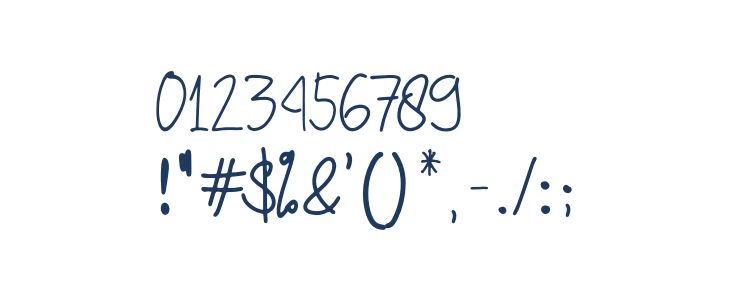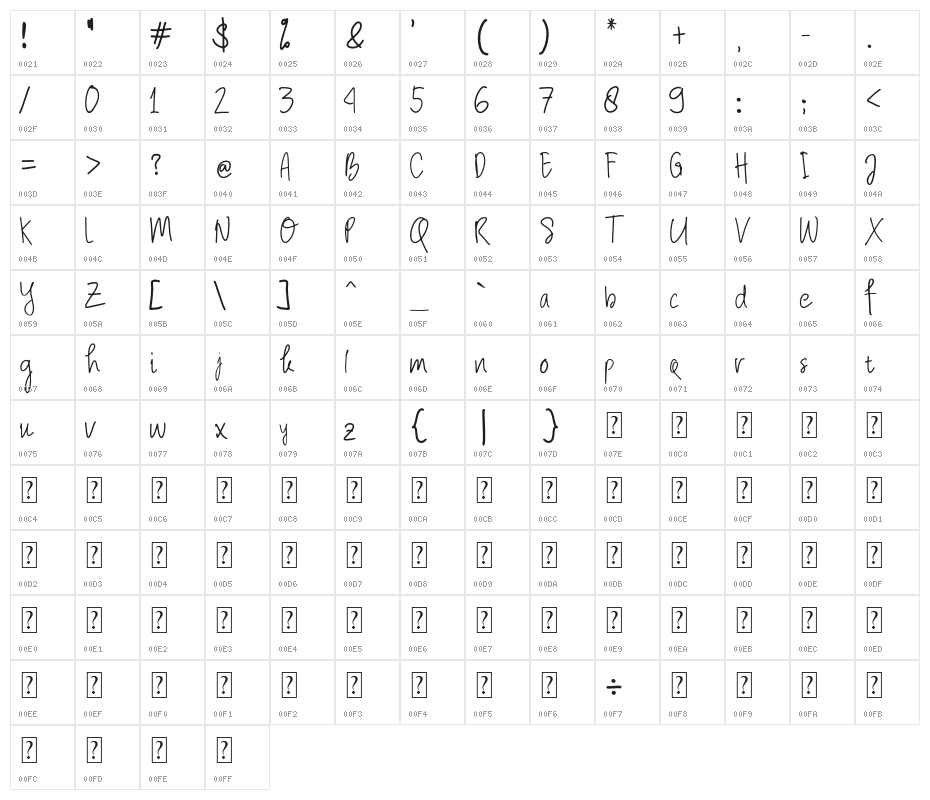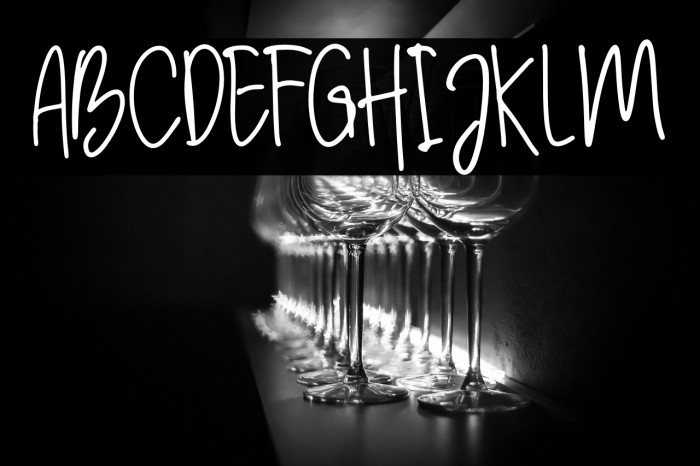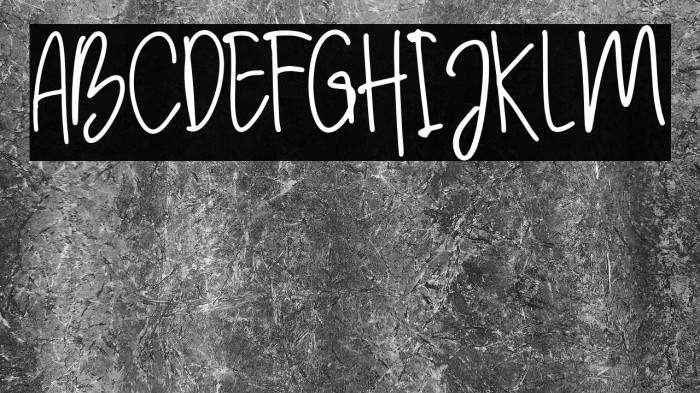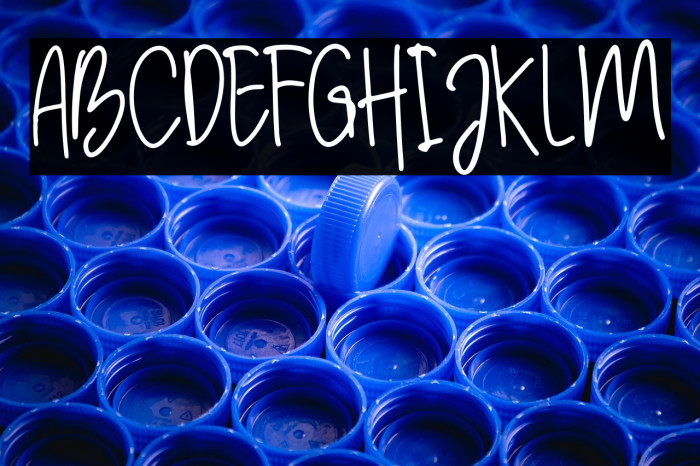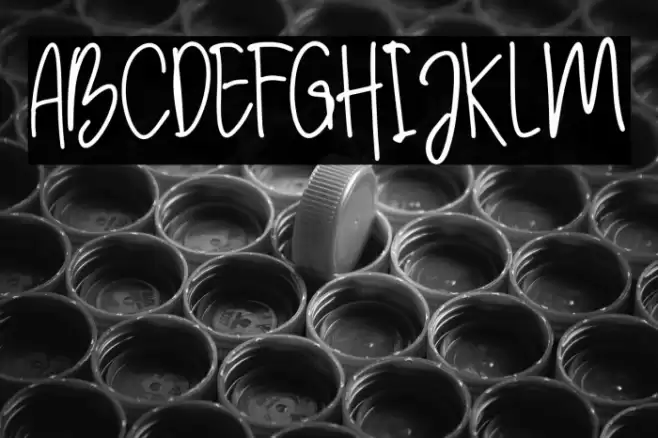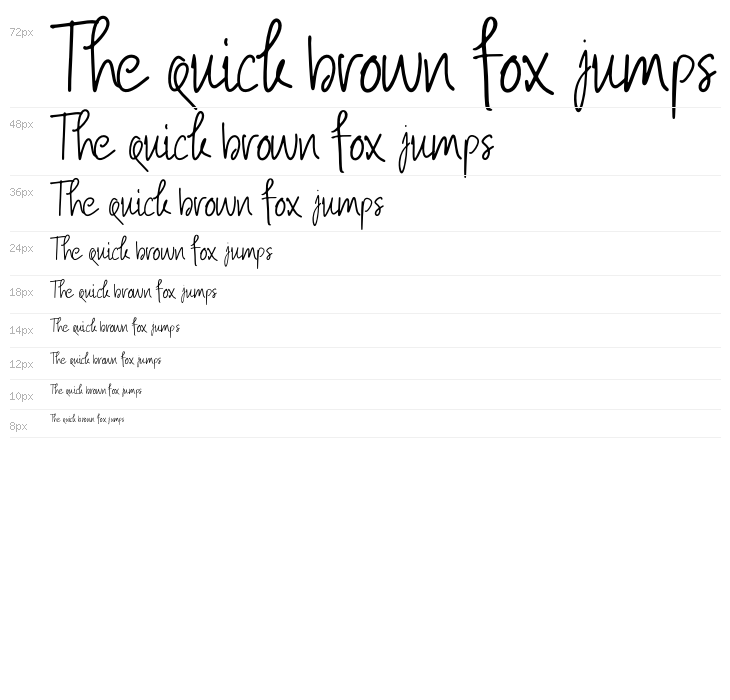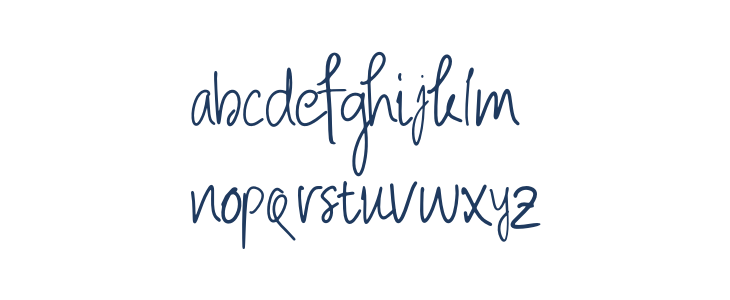
ScientiaVenit Font
ScientiaVenit Description
This font features a playful and casual handwritten style, characterized by its fluid and organic letterforms. The uppercase and lowercase letters exhibit a consistent slant, adding a dynamic feel to the text. The strokes are smooth and slightly irregular, giving it an authentic handwritten appearance. The numbers and special characters maintain the same playful aesthetic, ensuring a cohesive look across all text elements. The overall design is approachable and friendly, making it suitable for projects that require a personal touch.